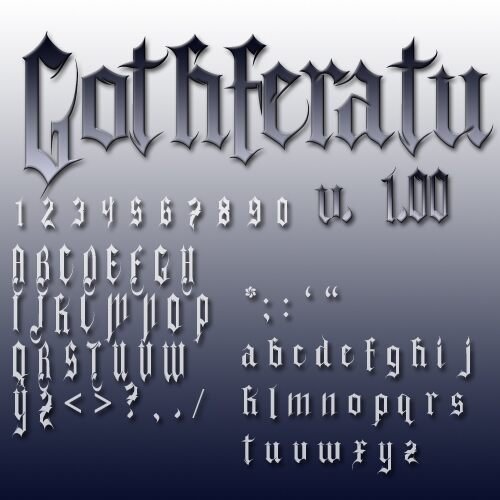
Gothferatu by J. Bensch is a free medieval blackletter font with an unusually severe and theatrical profile. Its very tall letters combine blade-like strokes, deep pointed arches, exaggerated feet, and tightly compressed joins to form a dense, almost architectural pattern that recalls ornate Gothic title lettering.
Dark fantasy and horror themes are its clearest territory, especially for film posters, album covers, and game graphics. The dramatic silhouette also suits merchandise and entertainment branding, where the lettering can become part of a vampire, haunted-castle, or heavy-metal identity rather than serving as neutral text.